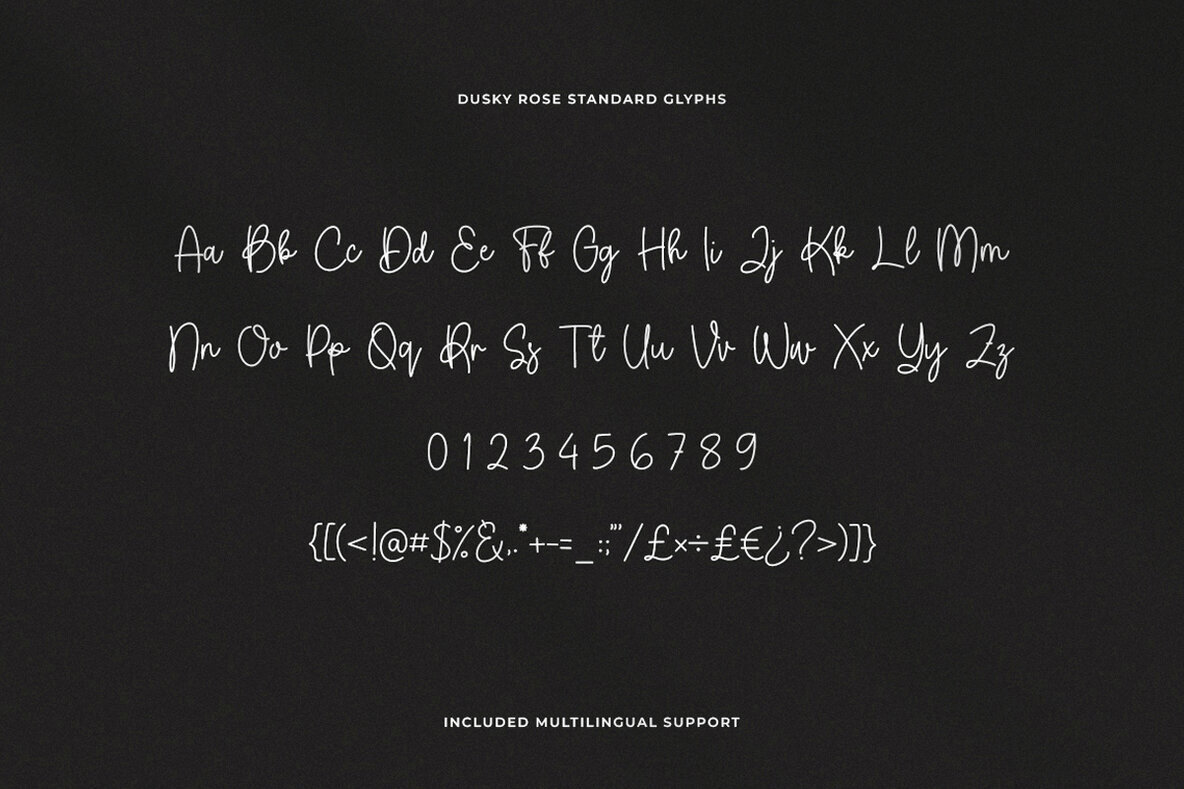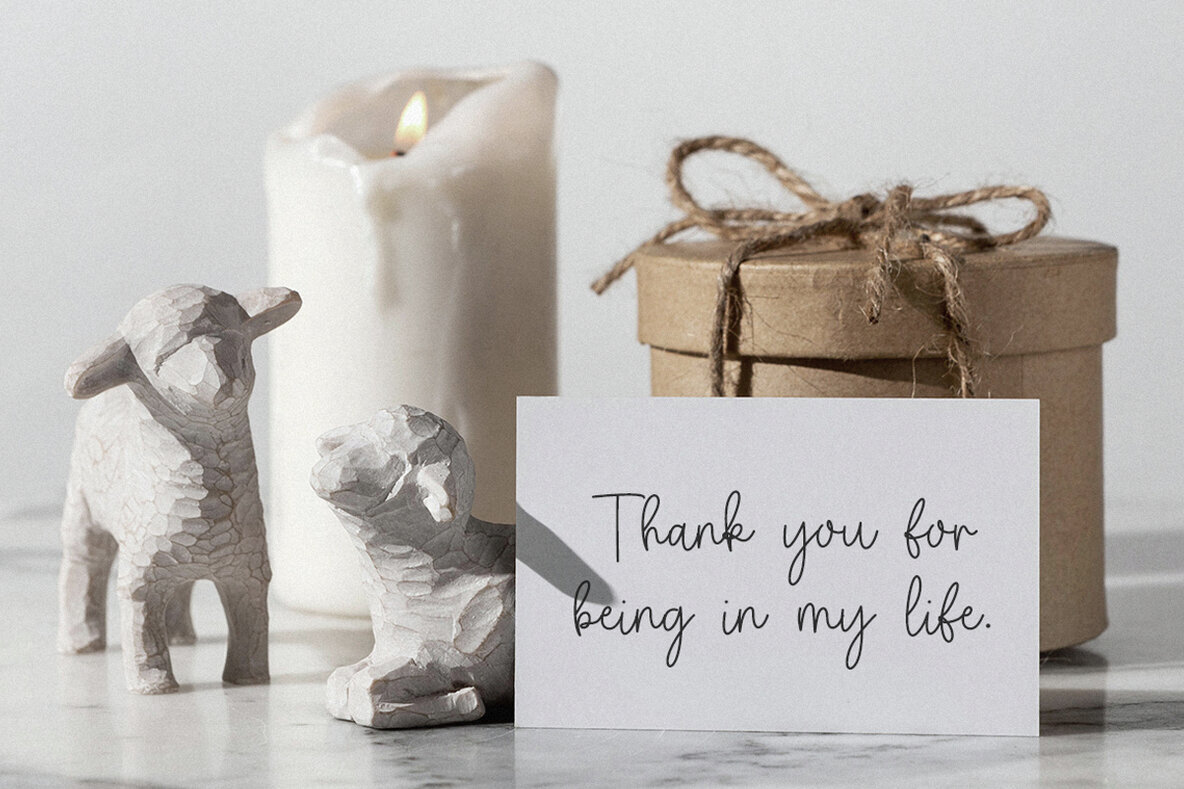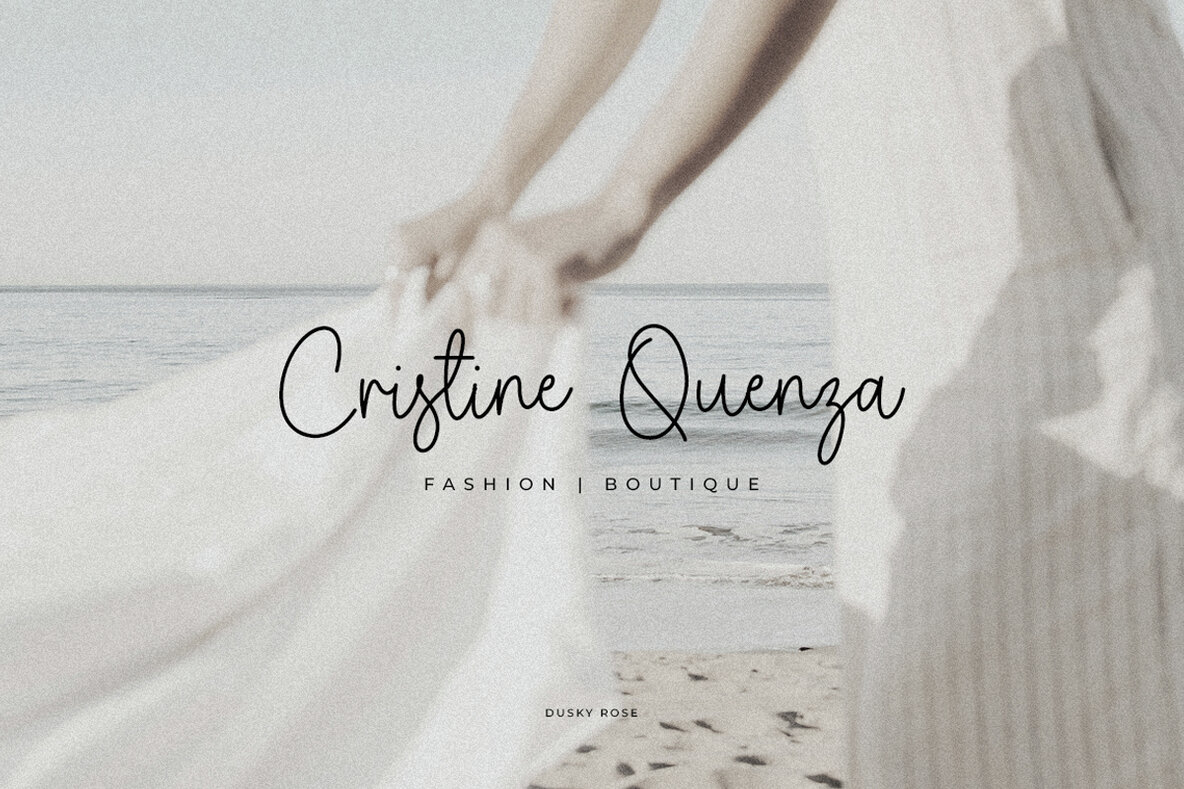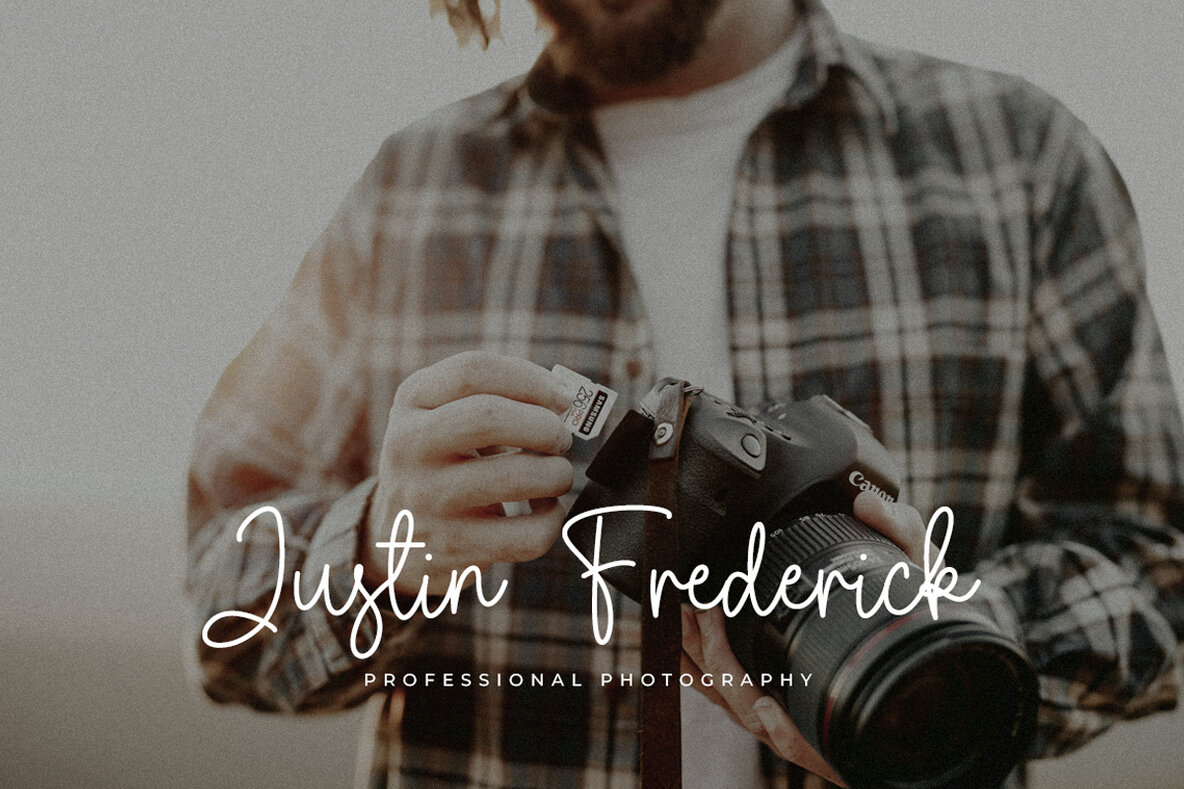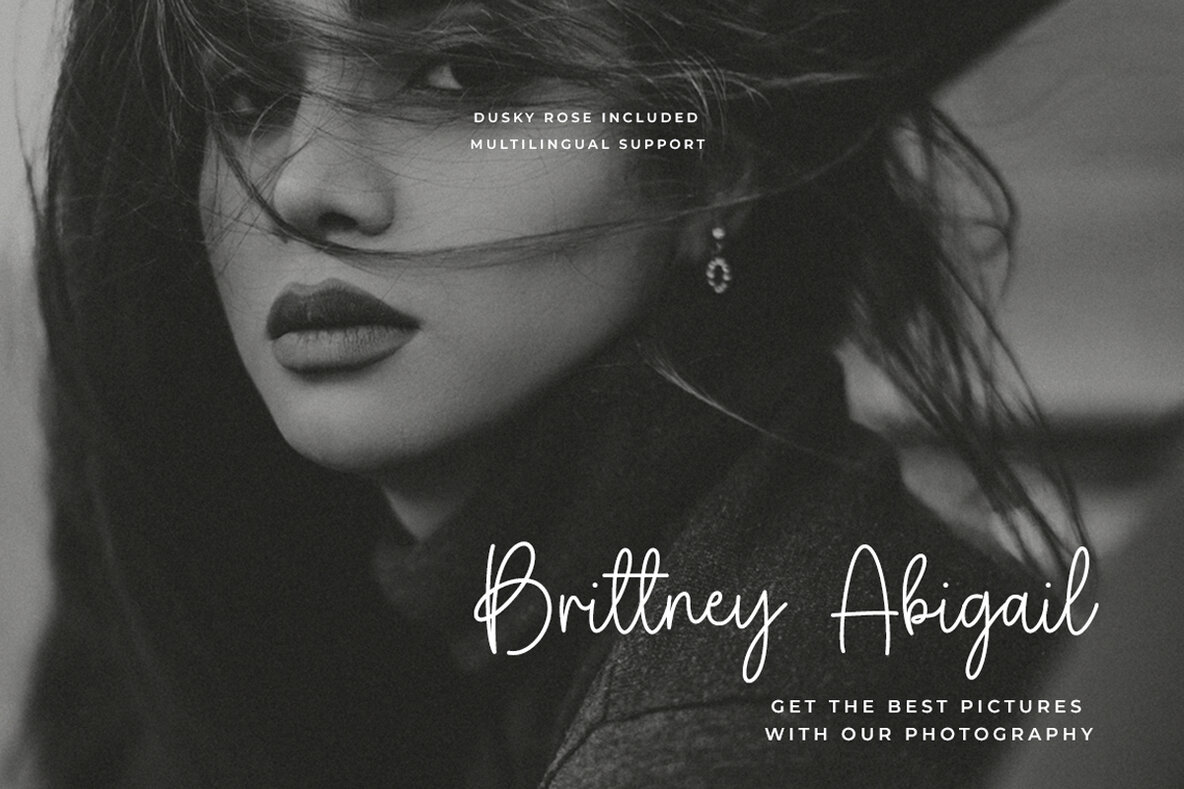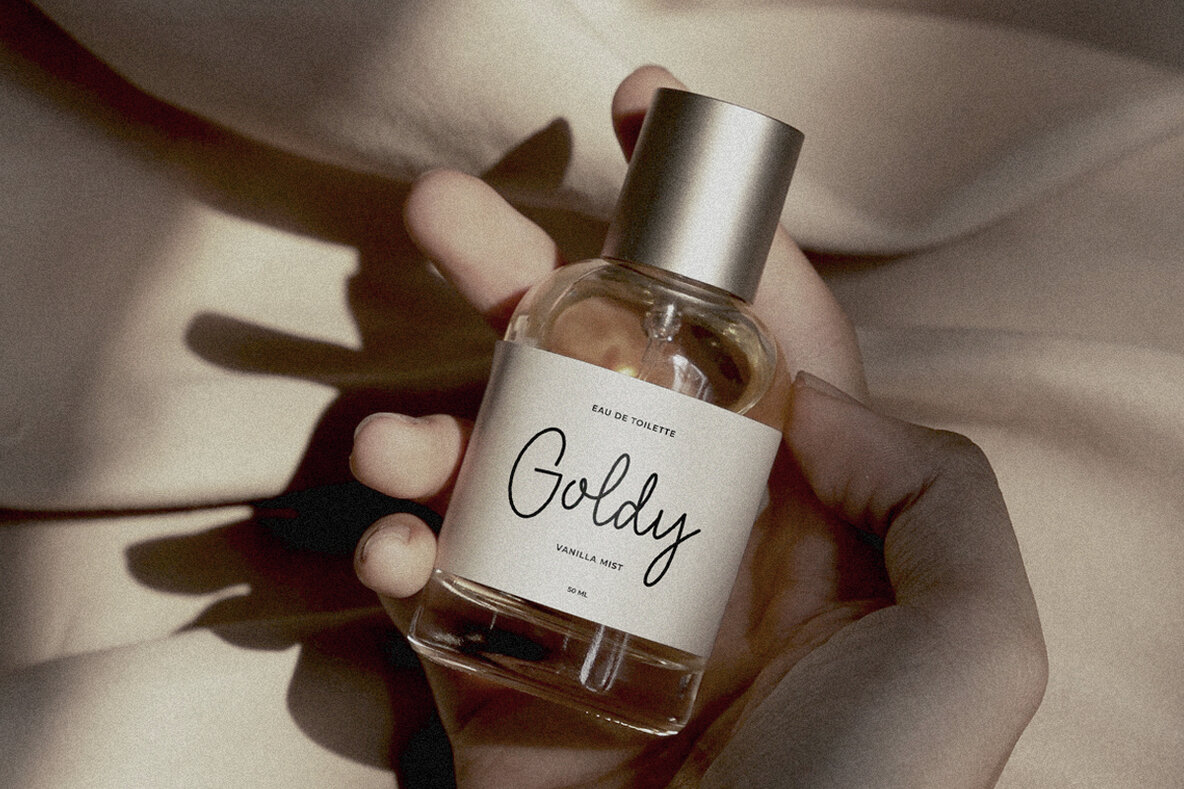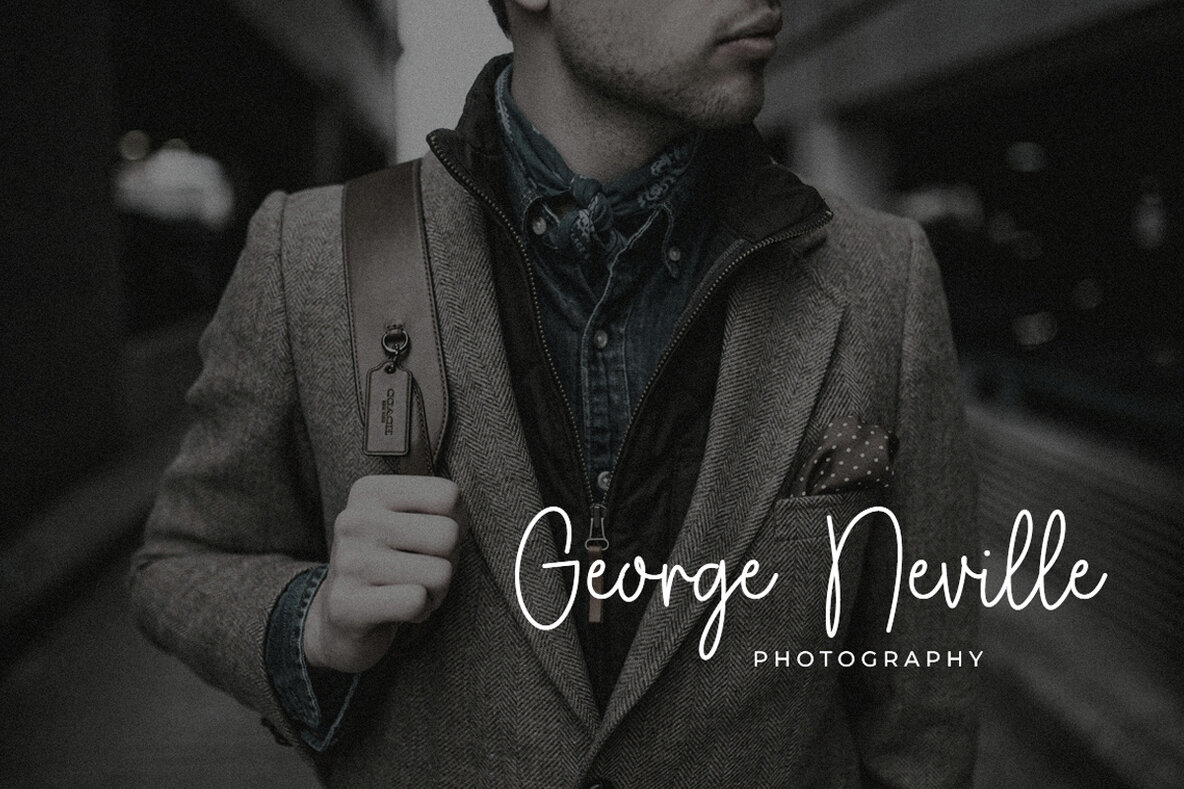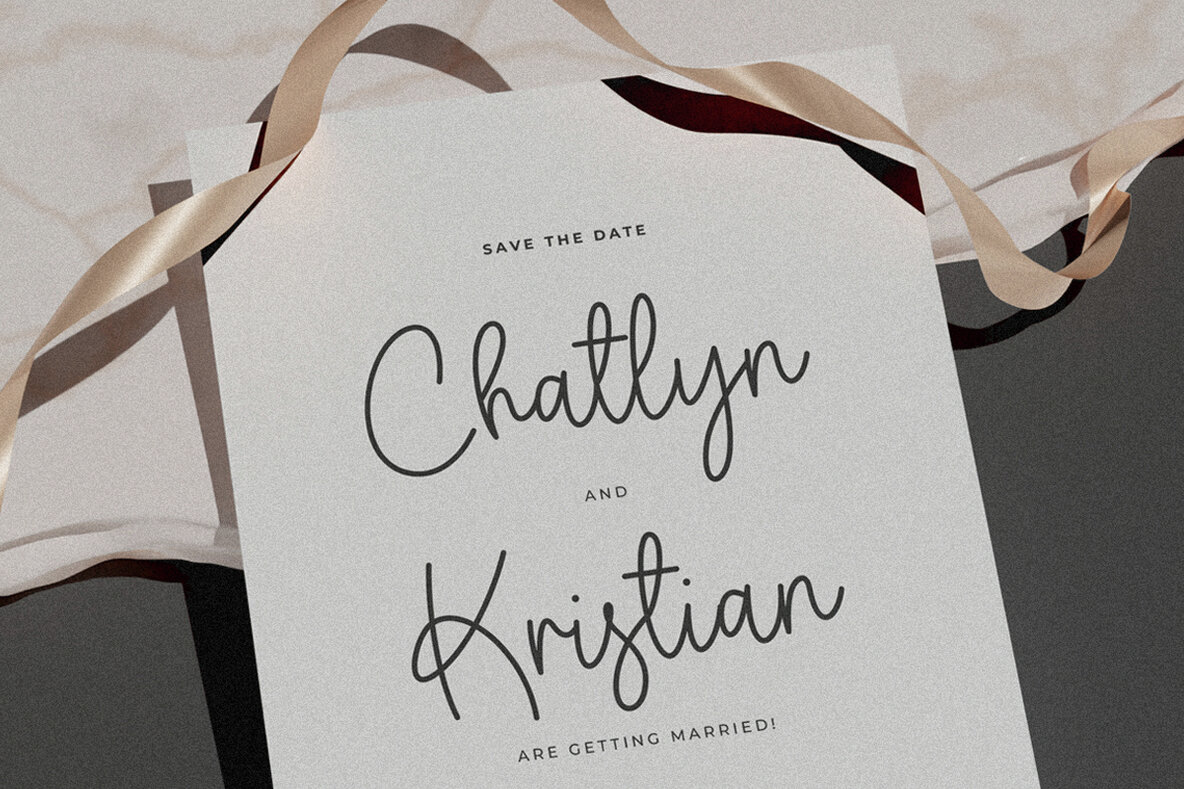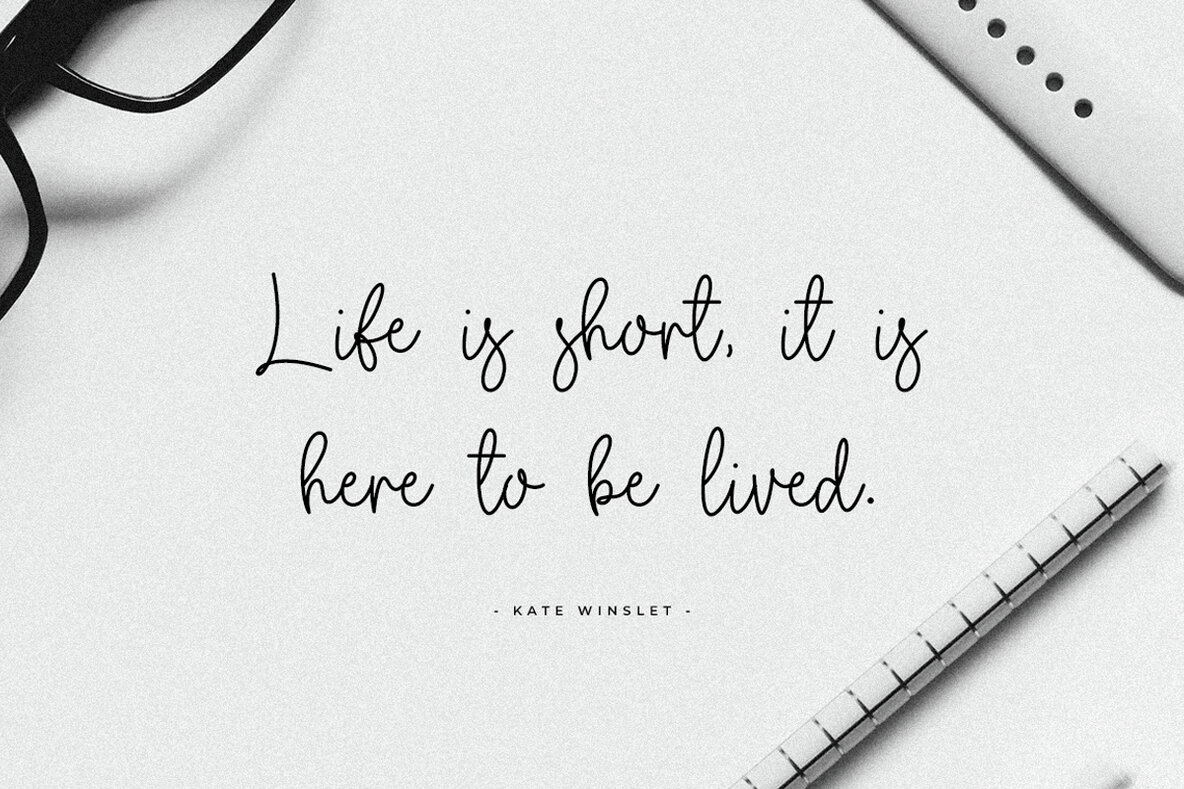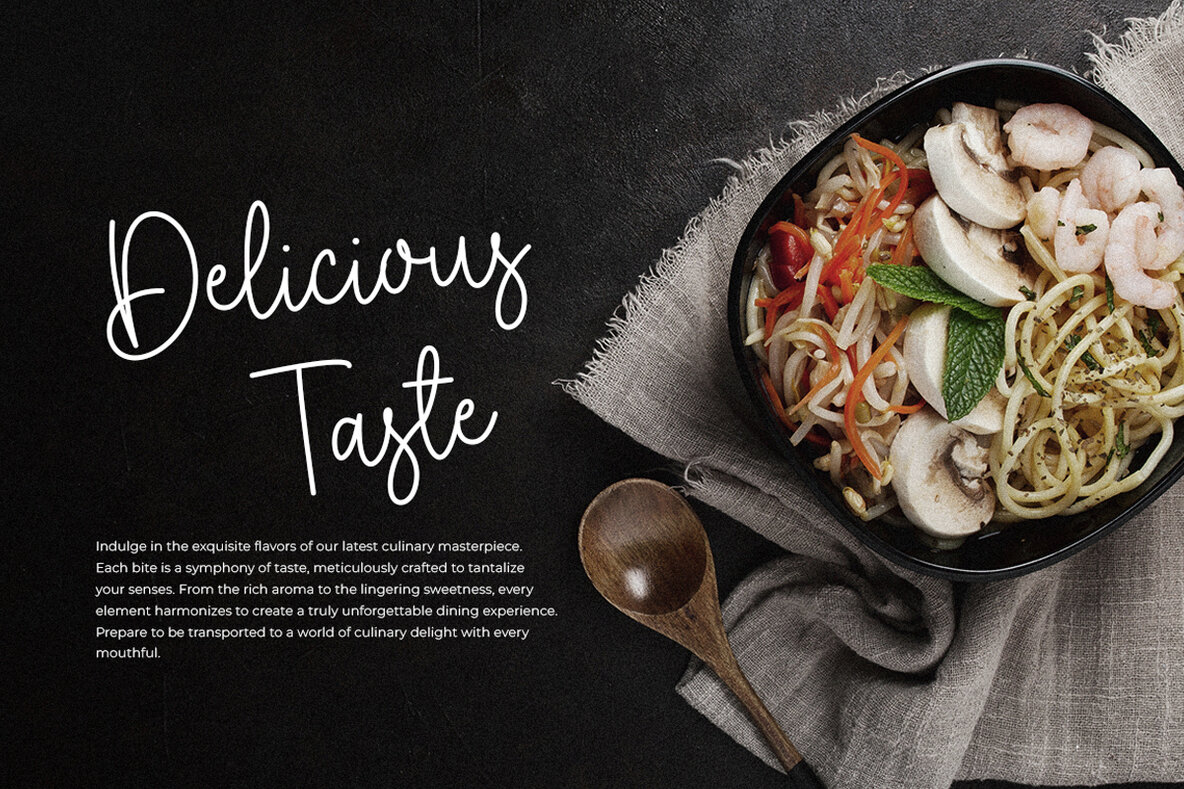
Dusky Rose Font
Dusky Rose Regular
Dusky Rose is a flowing handwriting font with an elegant touch, ideal for wedding invitations, thank you cards, quotes, greeting cards, logos, and business cards. Its distinct and timeless style adds a handwritten charm to any design, helping you create spectacular projects.